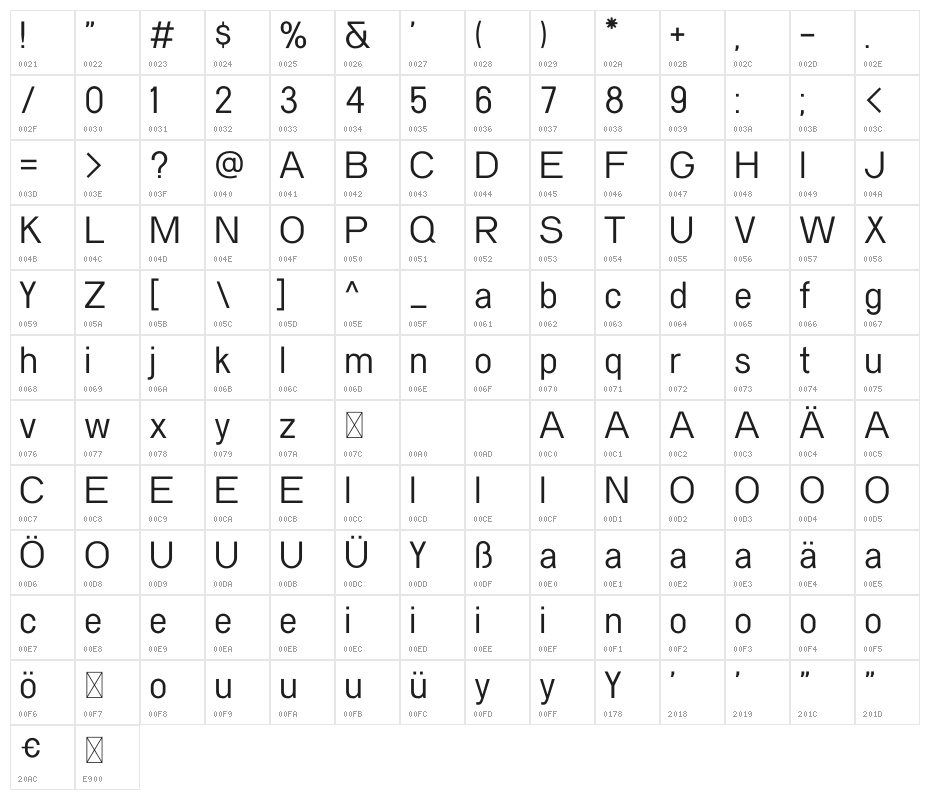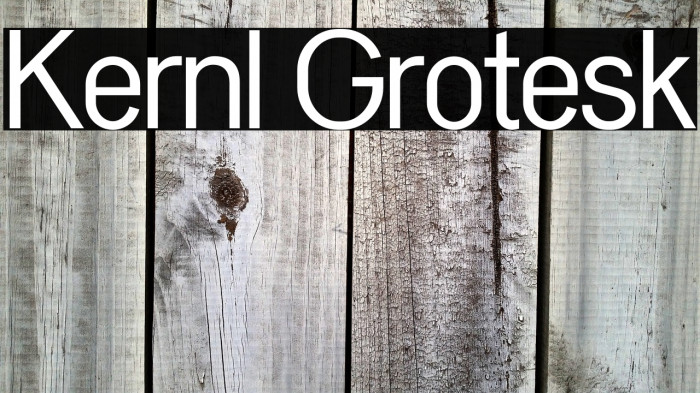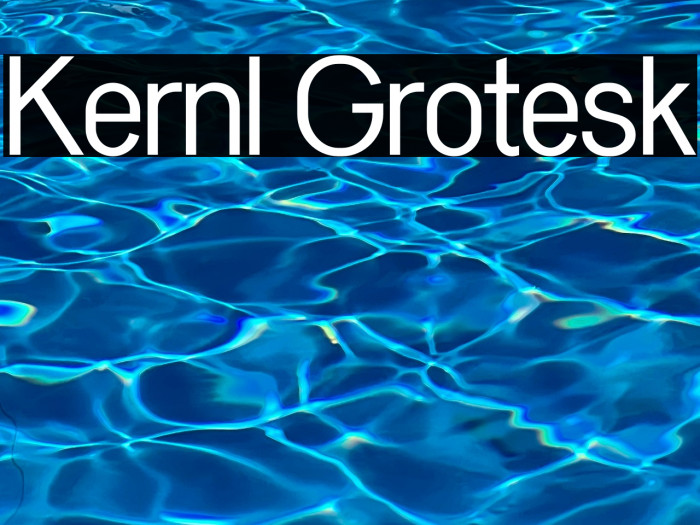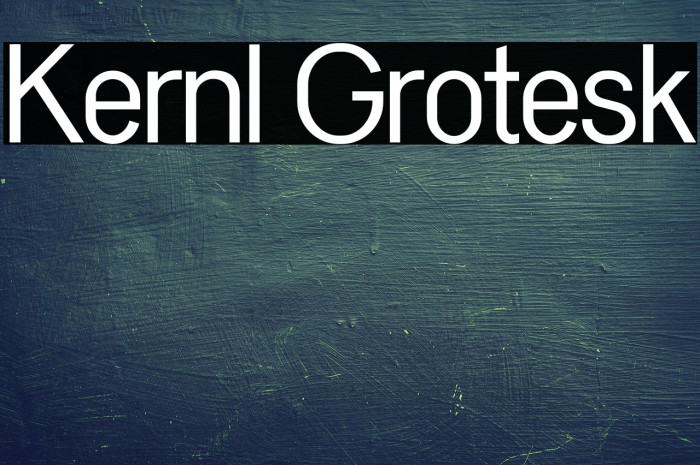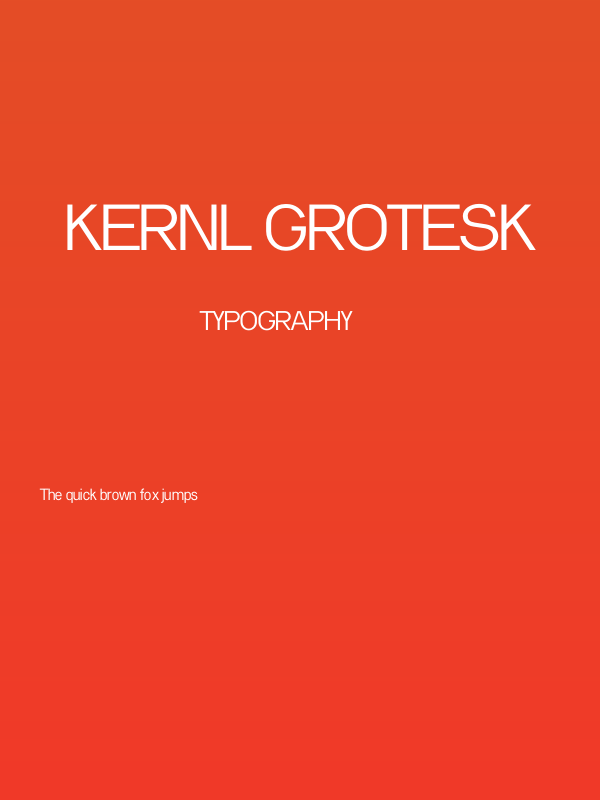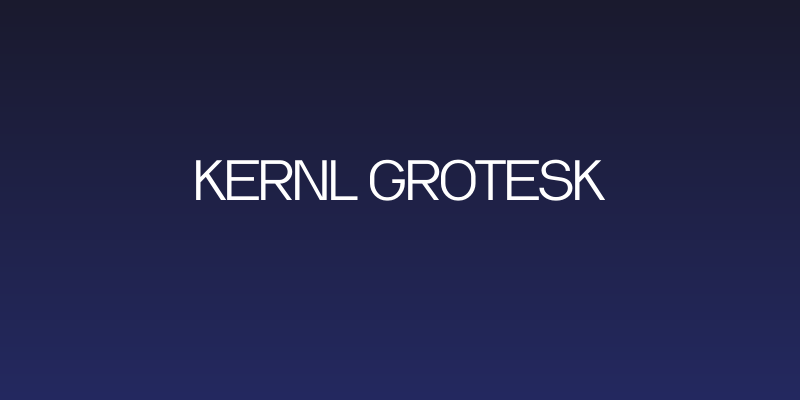
Kernl Grotesk Font
Kernl Grotesk Description
This typeface features a clean and modern sans-serif design, characterized by its geometric shapes and uniform stroke widths. The uppercase letters are bold and assertive, while the lowercase letters maintain a consistent height and spacing, providing a balanced and harmonious appearance. The numerals are clear and easily distinguishable, making them suitable for various applications. Special characters are well-integrated, maintaining the overall aesthetic of the typeface. The font's simplicity and clarity make it versatile for both digital and print media.
| Proposed Projects | Ideal for branding, web design, advertising, and editorial layouts. |